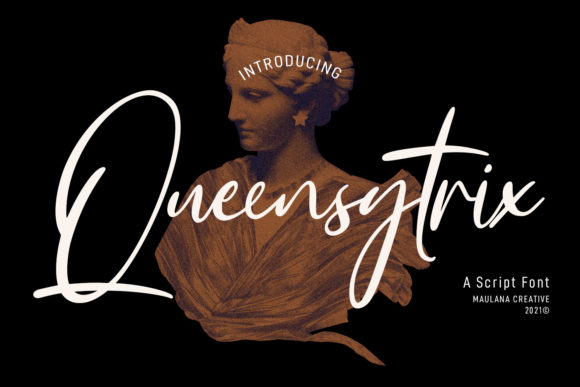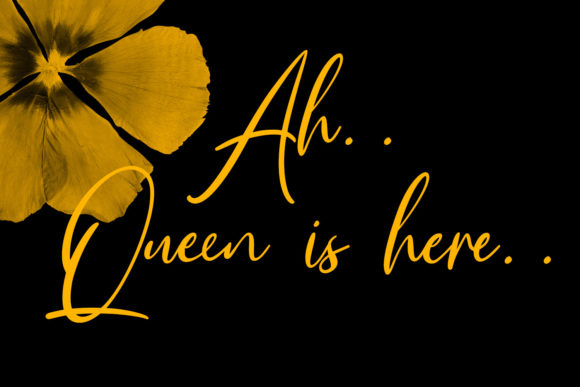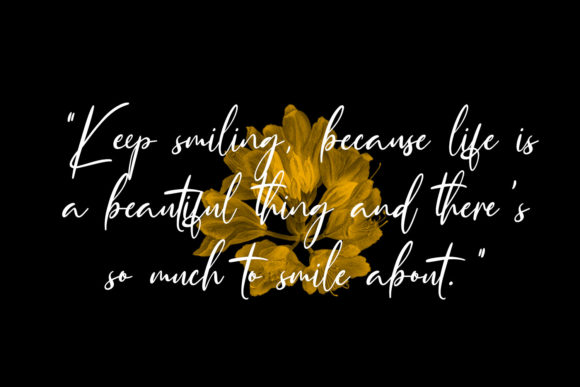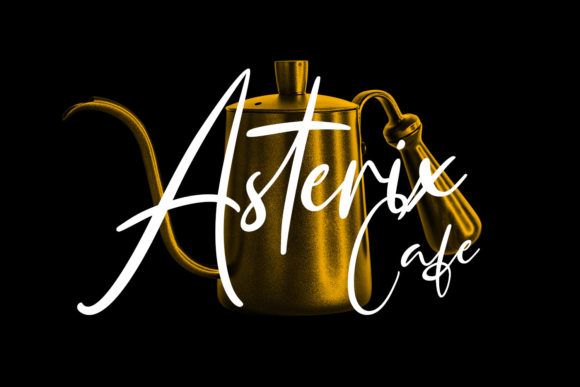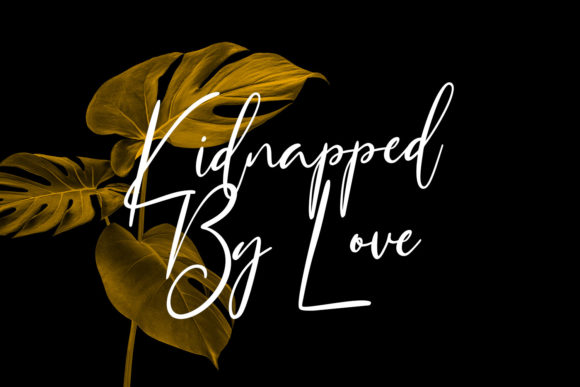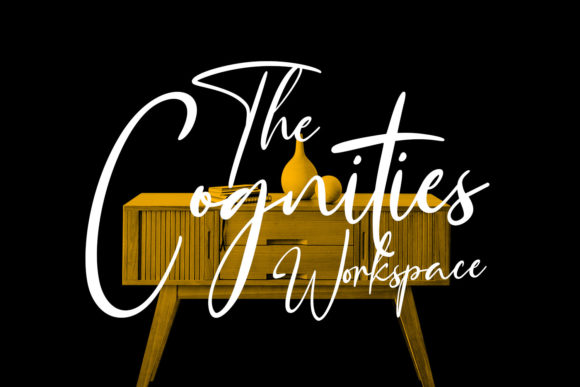
Queensytrix Signature Script Font
About Queensytrix Signature Script Font
Queensytrix Signature Script is a lovely script font featuring charming, playful characters that seem to dance along the baseline. Add this font to your most creative ideas, and notice how it makes them stand out!